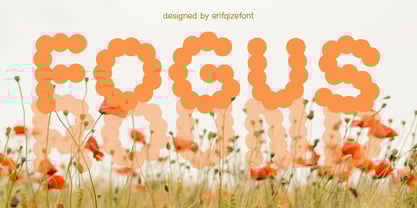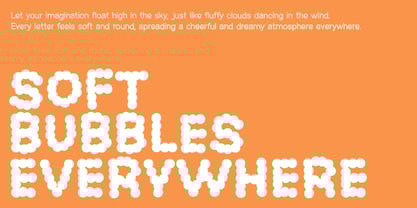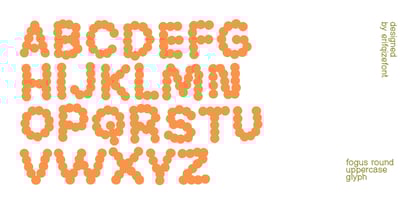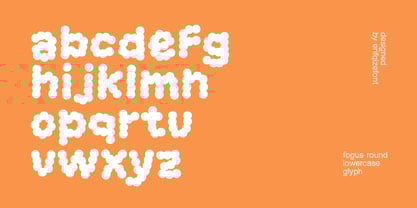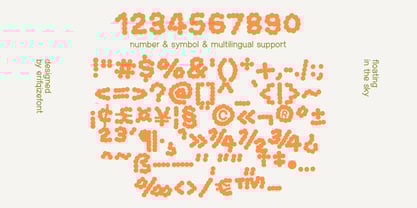
Fogus Round
by Erifqizefont
The Fogus Round Font Family was designed by Eka Rifqi Setiawan and published by Erifqizefont. Fogus Round contains 1 styles. More about this family
Fogus Round is a soft and playful display typeface inspired by the lightness of clouds and the joy of simplicity. Its rounded forms and bubbly personality create a friendly and welcoming look, making it perfect for projects that aim to bring smiles and warmth. Designed to capture a cheerful and dreamy atmosphere, Fogus Round works beautifully for children’s designs, product packaging, posters, quotes, or any creative work that needs a touch of fun and positivity. Every curve of its letters radiates happiness, giving your words a lively and delightful character. Fogus Round includes uppercase and lowercase letters, numbers, punctuation, and multilingual support.
Designers: Eka Rifqi Setiawan
Foundry: Erifqizefont